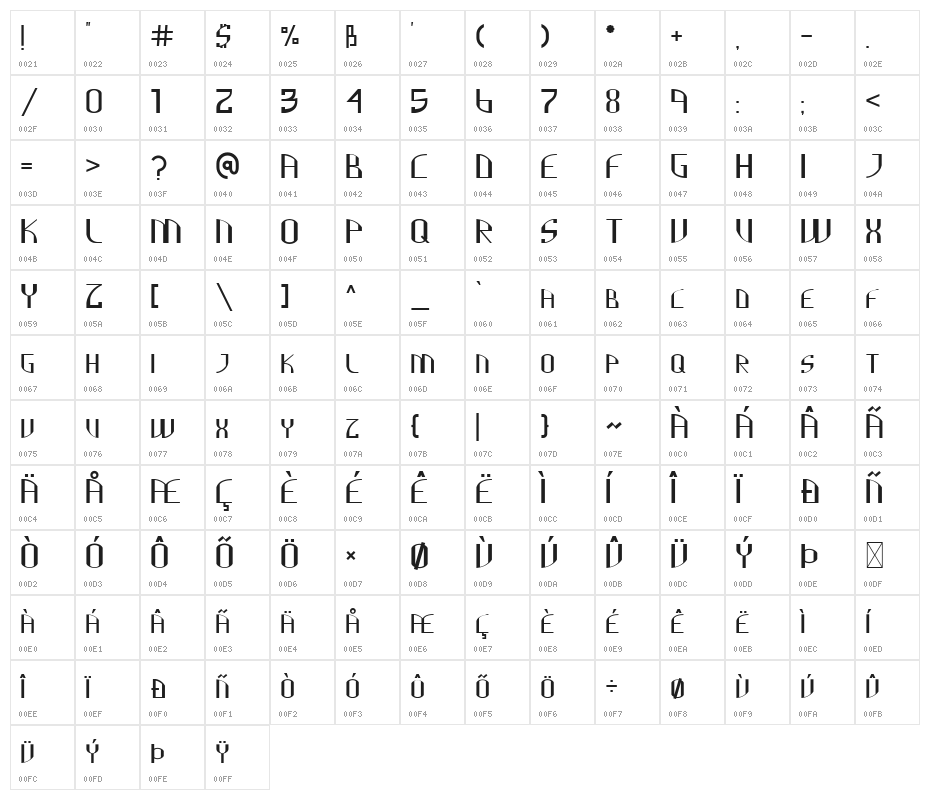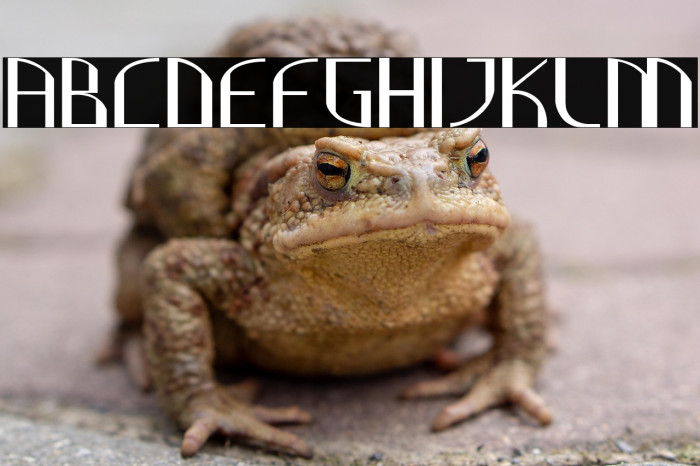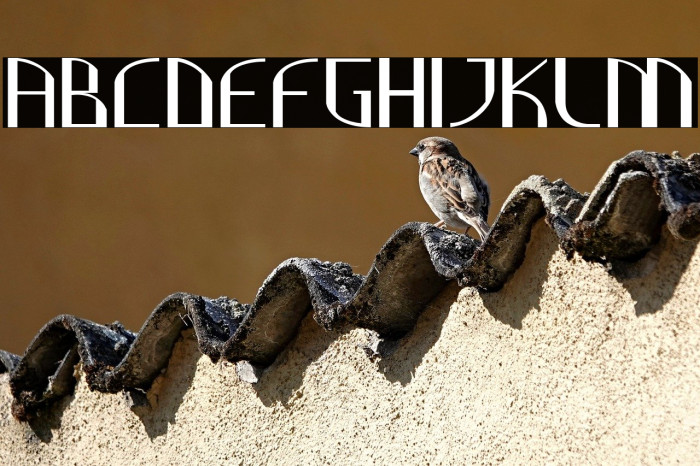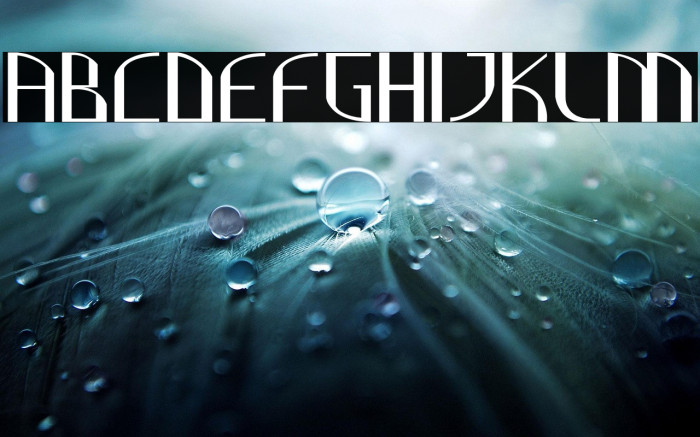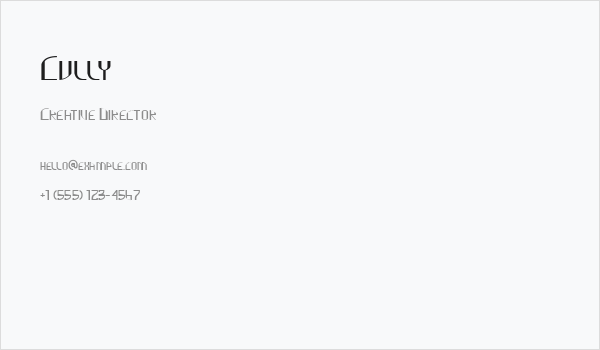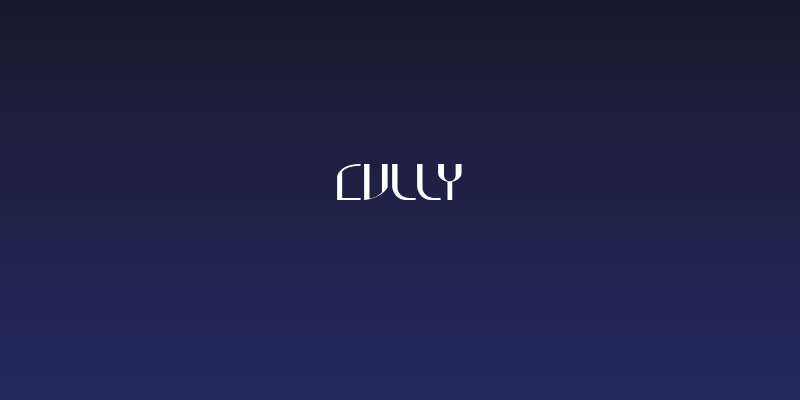
Cully Font
Cully Description
This font features a modern, geometric design with a distinct futuristic flair. The characters are constructed with sharp angles and clean lines, creating a sense of precision and sophistication. The uppercase letters are particularly striking, with unique cutouts and angular shapes that give them a bold, dynamic appearance. The lowercase letters maintain the same geometric style, ensuring consistency throughout the typeface. Numbers and special characters are designed with the same attention to detail, making them suitable for a variety of applications. The overall look is sleek and contemporary, ideal for projects that require a modern aesthetic.
| Overall Style | Futuristic, Geometric |
| Proposed Projects | Ideal for technology branding, futuristic posters, modern logos, and digital interfaces. |